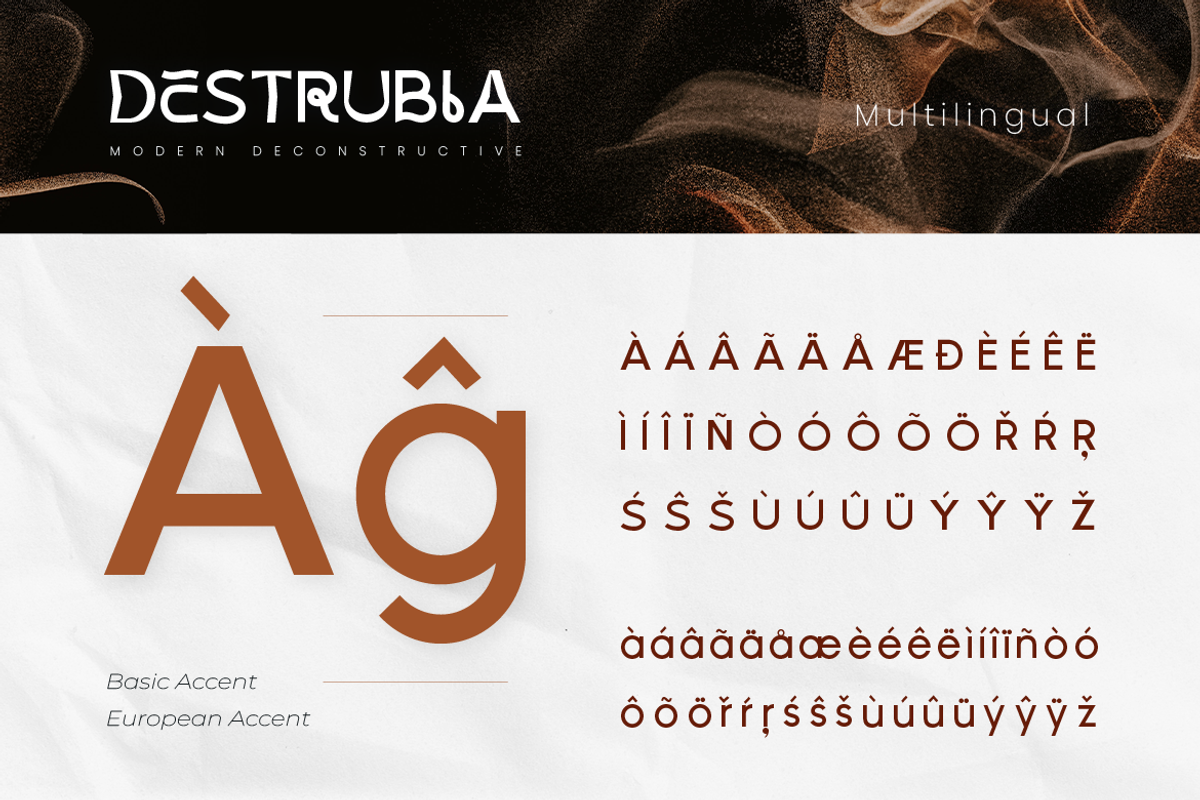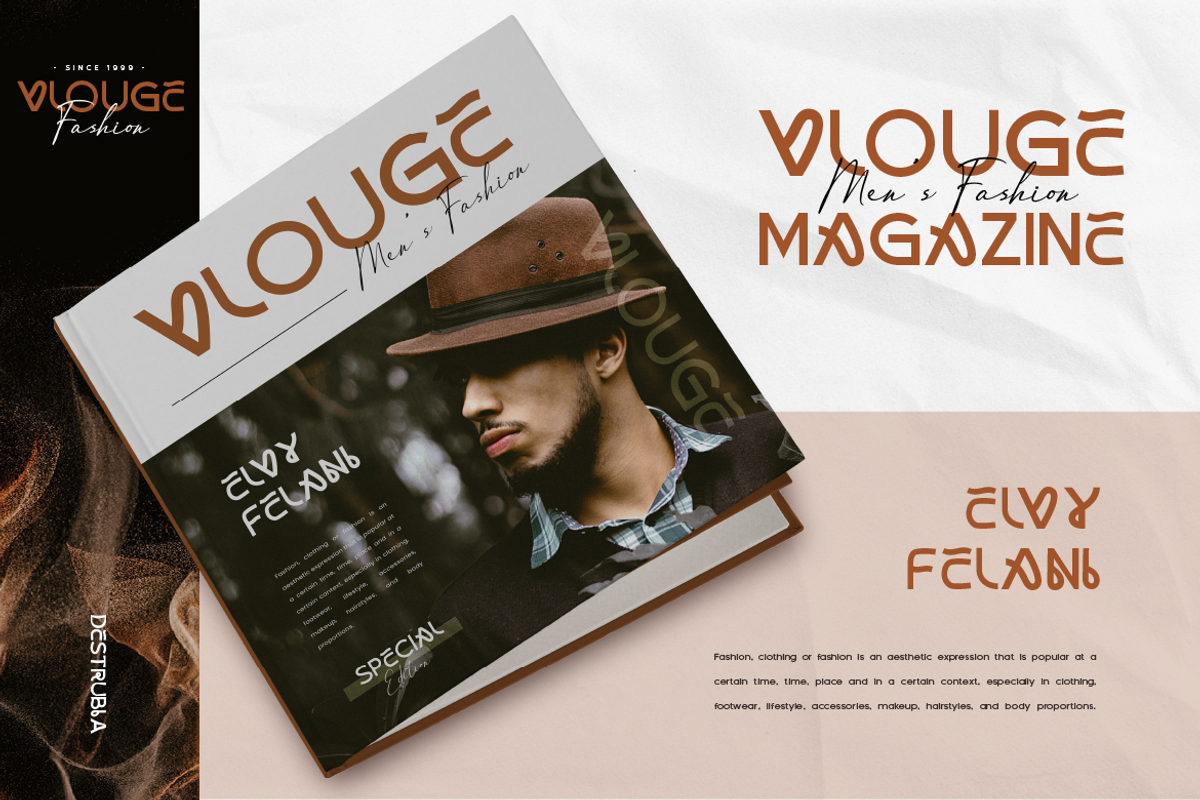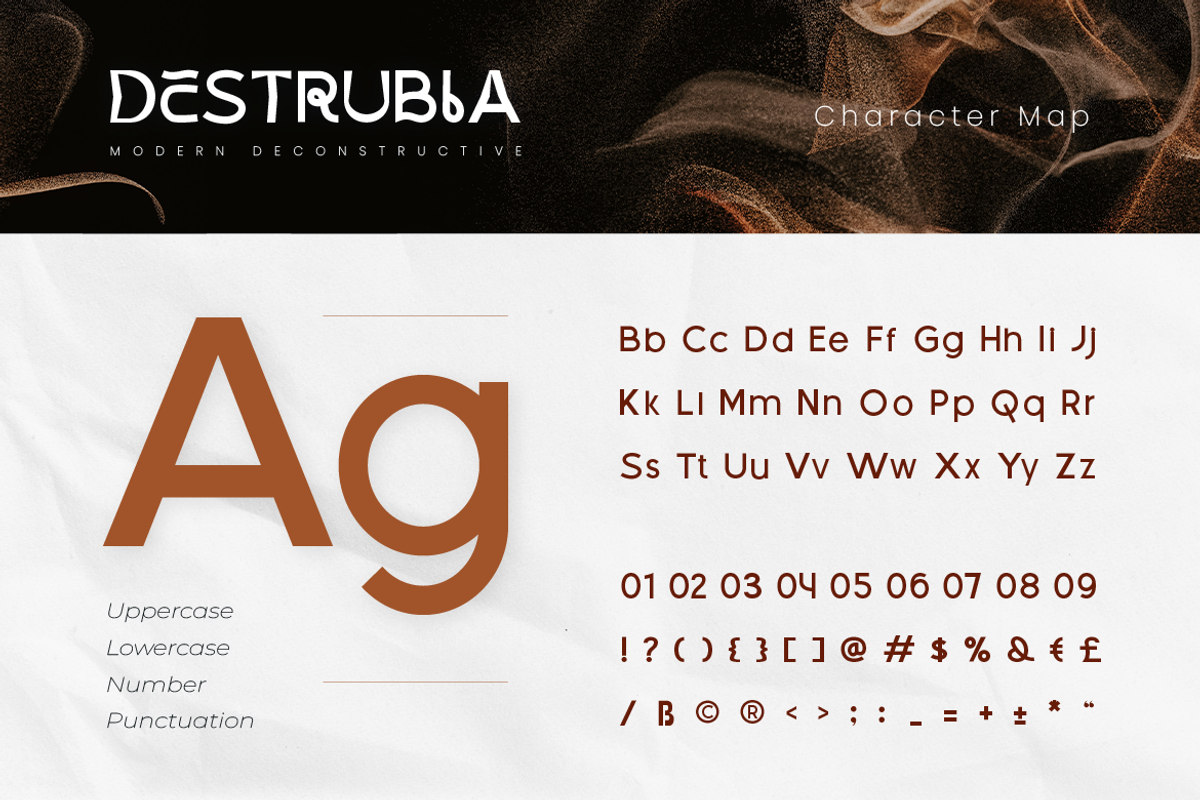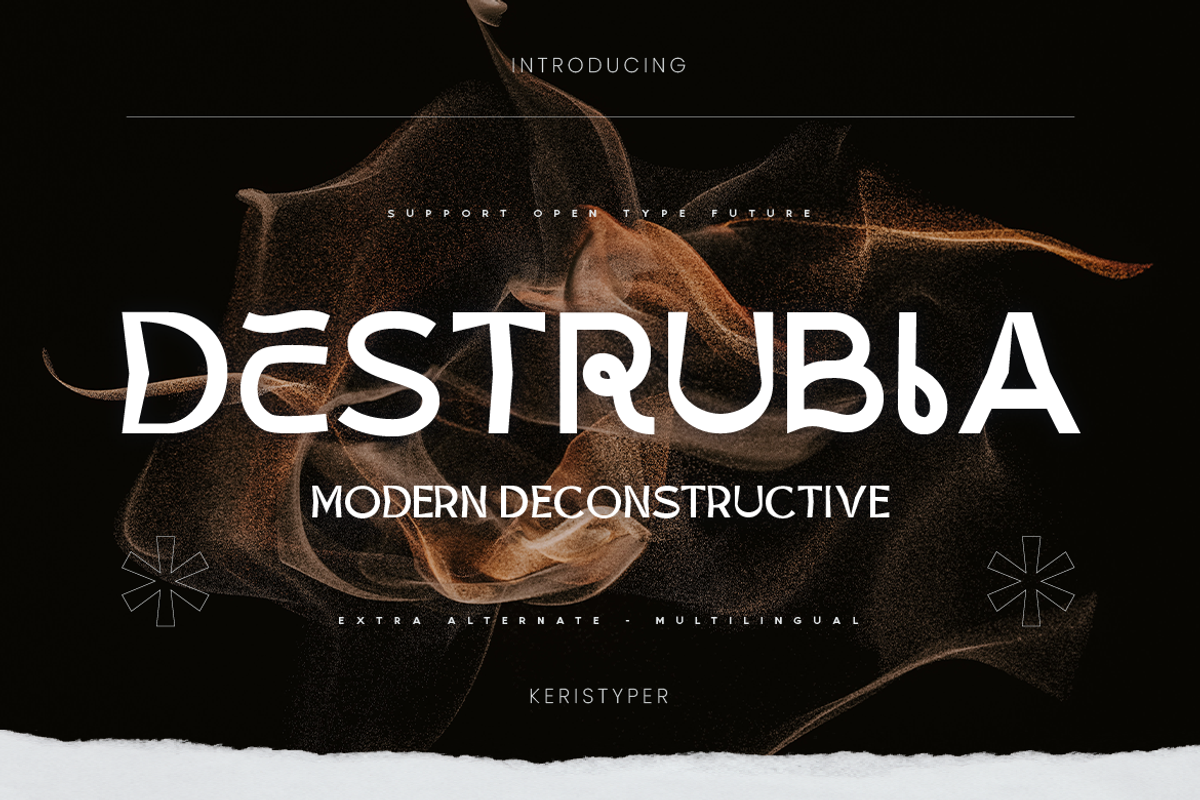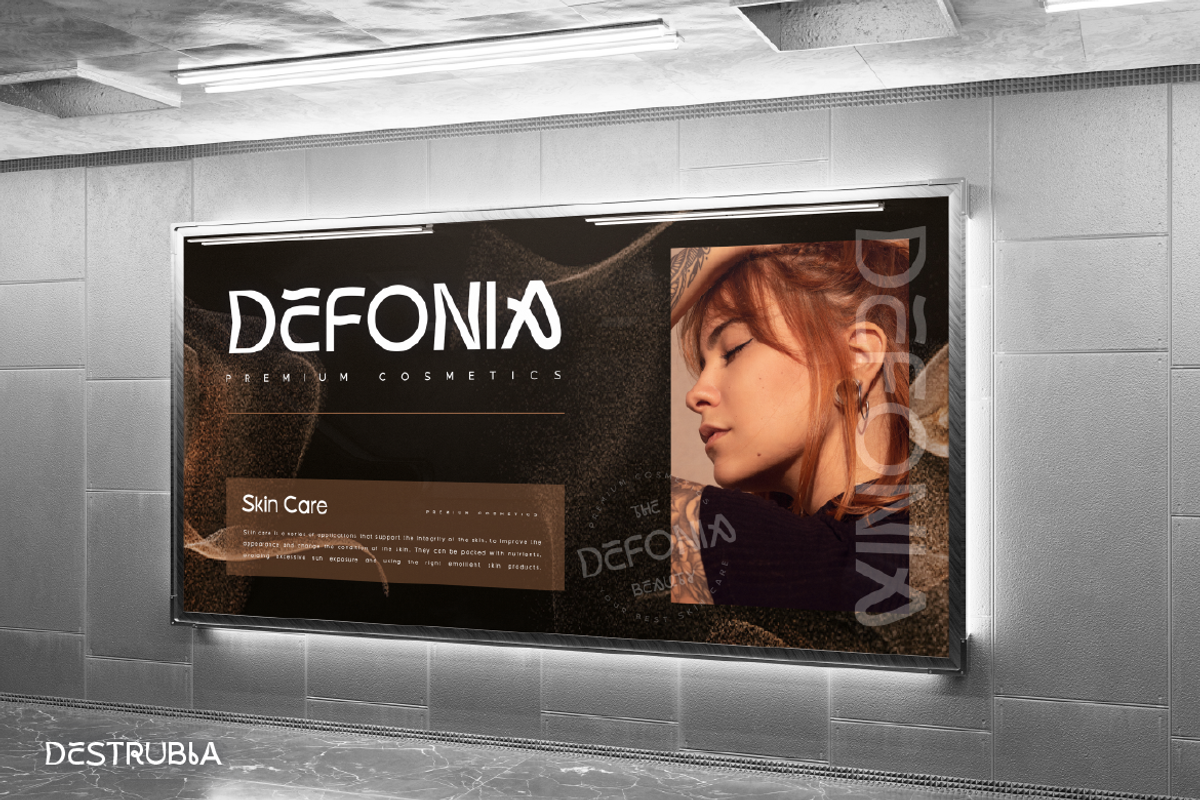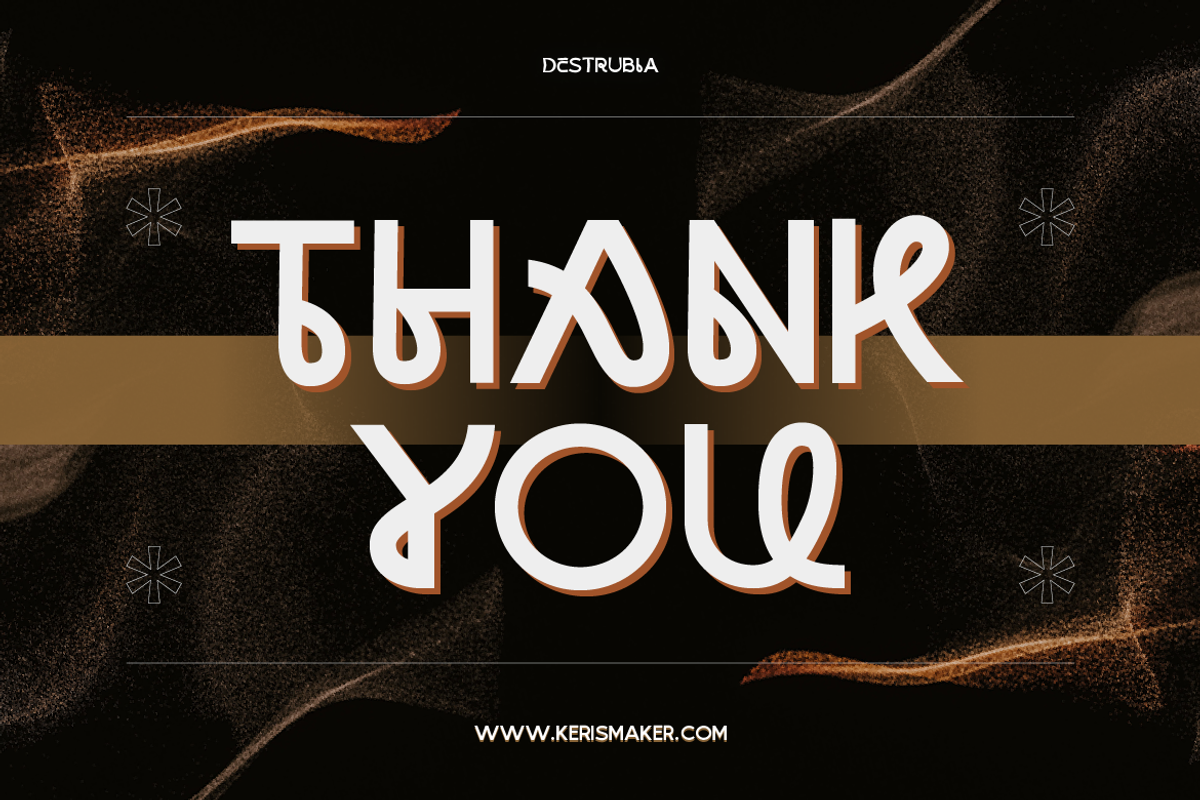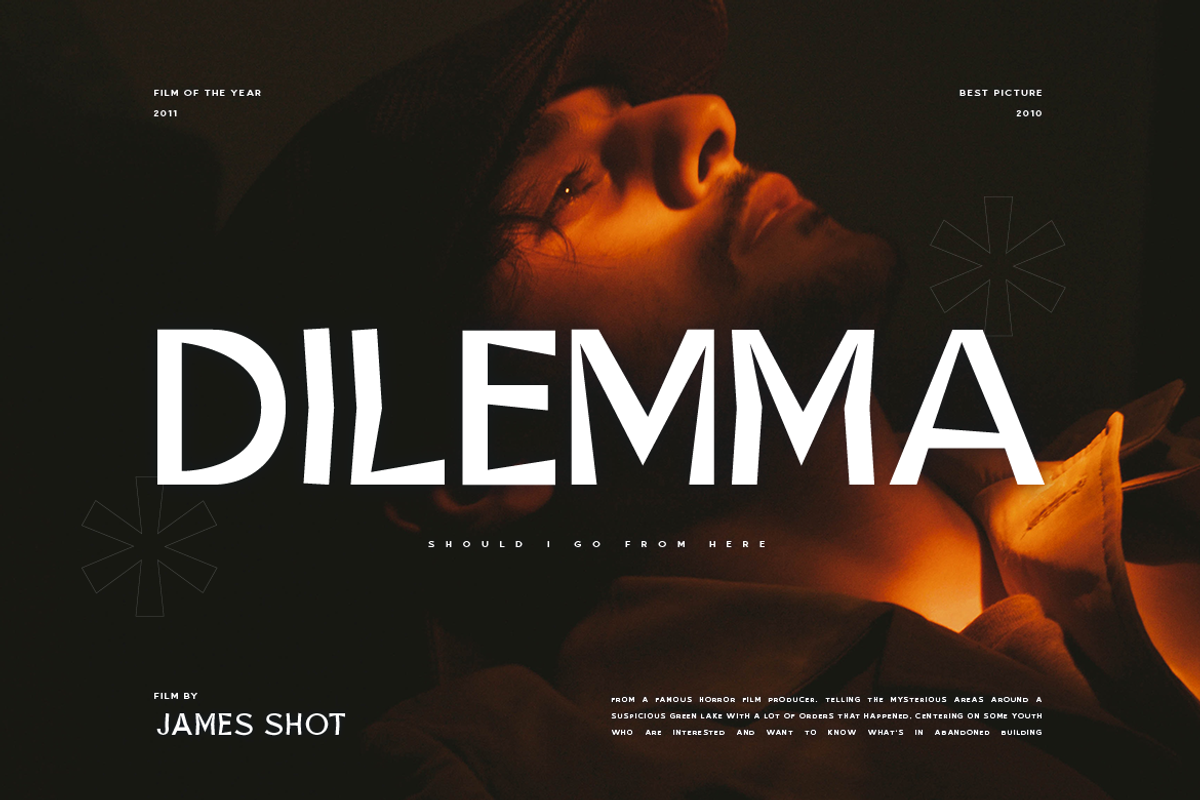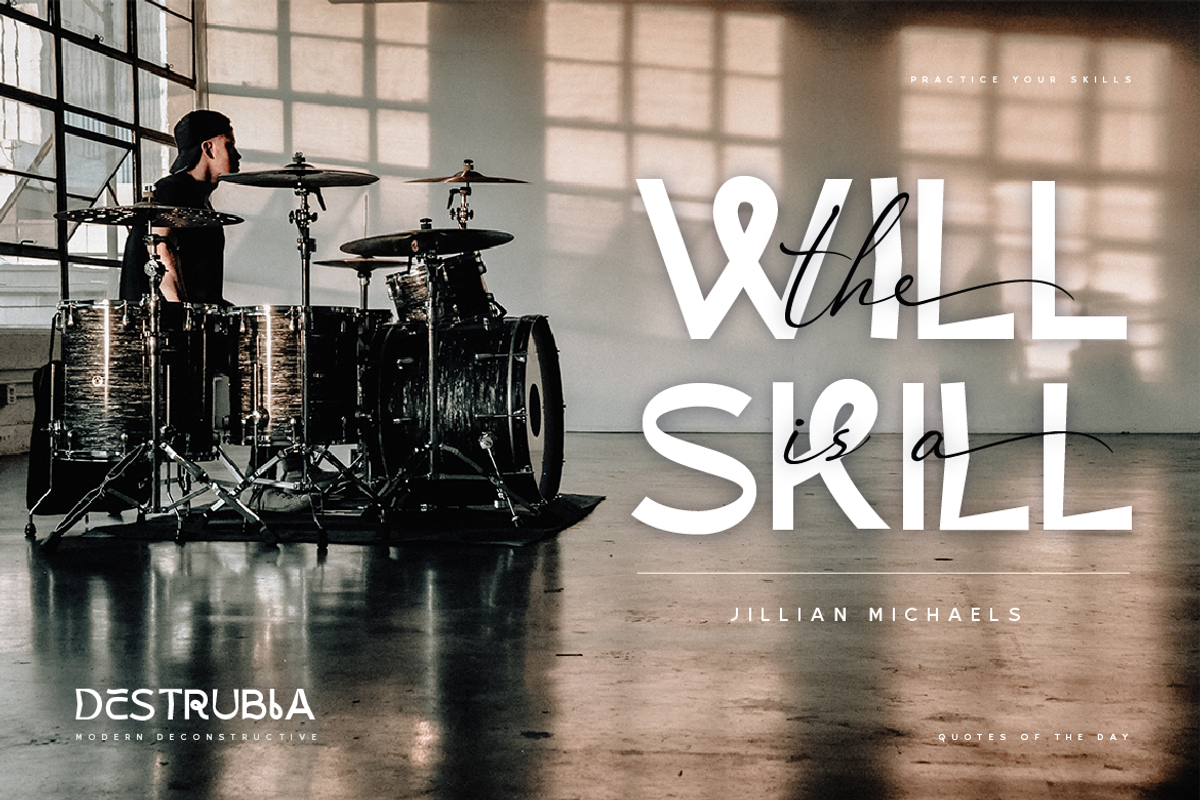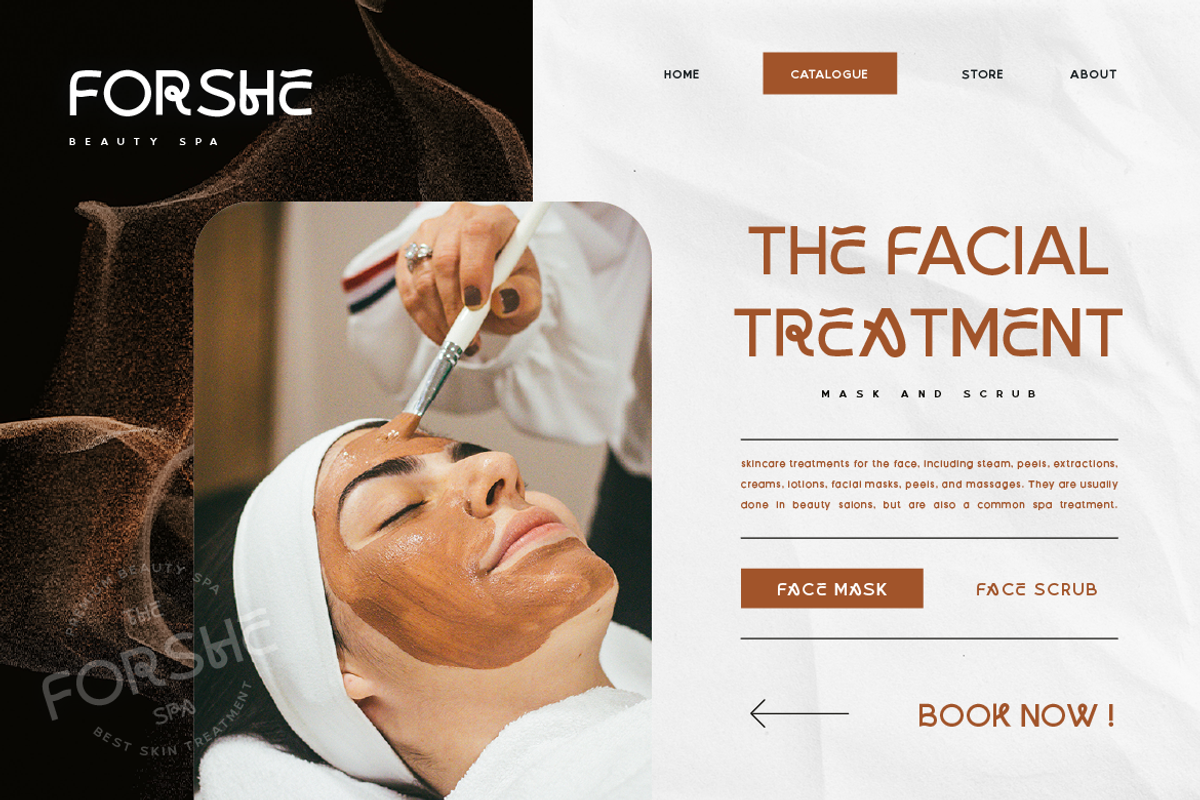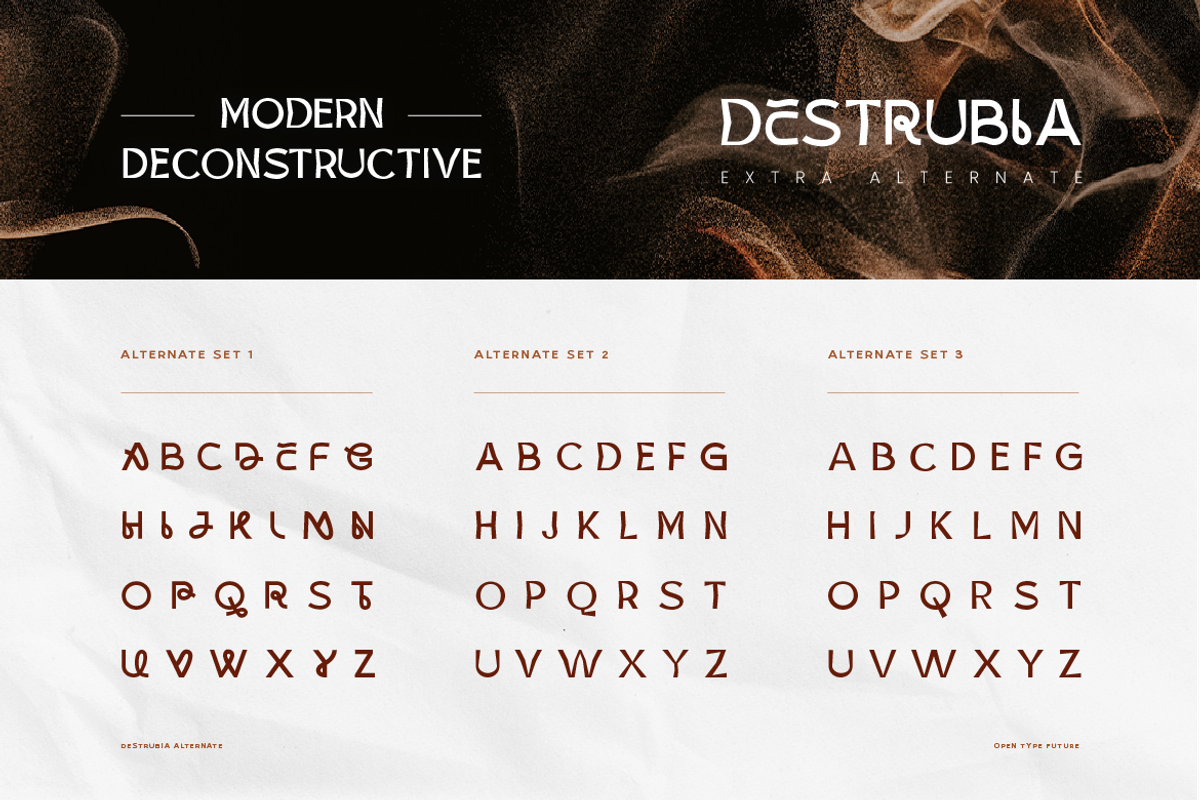
Destrubia
The Destrubia is made with the concept of a modern contemporary font display that gives a unique impression because it has a curvy and distortion shape. This font is good for logo design, Social media, Movie Titles, Books Titles, short text even long text letters, and good for your secondary text font with the script, sans, or serif.
- Standard Uppercase & Lowercase
- Multilingual : ä ö ü Ä Ö Ü ß ¿ ¡
- Alternate & Ligature